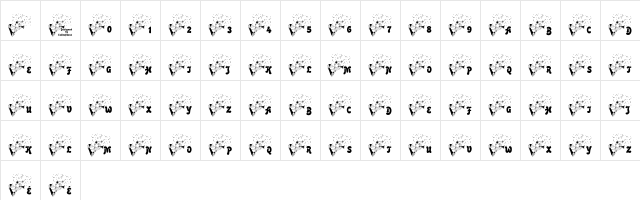
LCR Itz Party Tyme! Regular
Design Context for LCR Itz Party Tyme! Typeface
LCR Itz Party Tyme! is a composed and adaptable typeface that performs quietly and consistently across a wide range of design contexts.